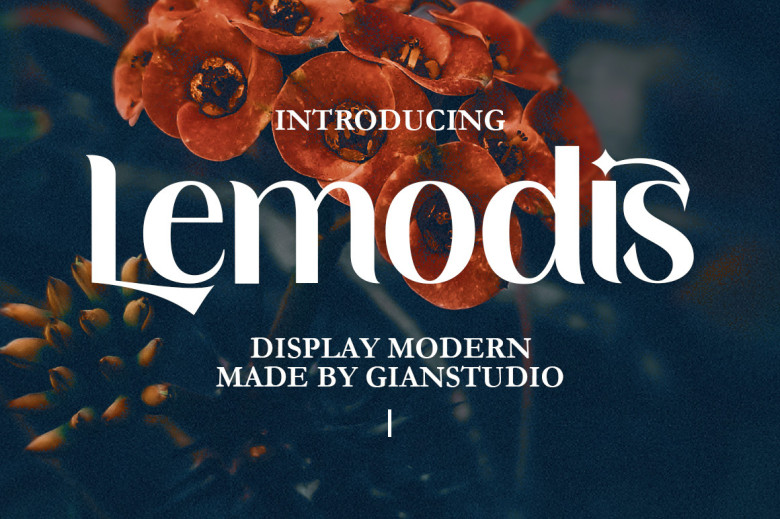
Lemodis Font
Lemodis is an eye-catching show font with striking features. Inspired by social media as well as other art styles, its concepts incorporate Lemodist concepts for an eclectic yet refined design aesthetic. Subtle yet Modern similar to what was showcased here above; let us know how Lemodis could “stand out” in your style!
Lemodis Display Font